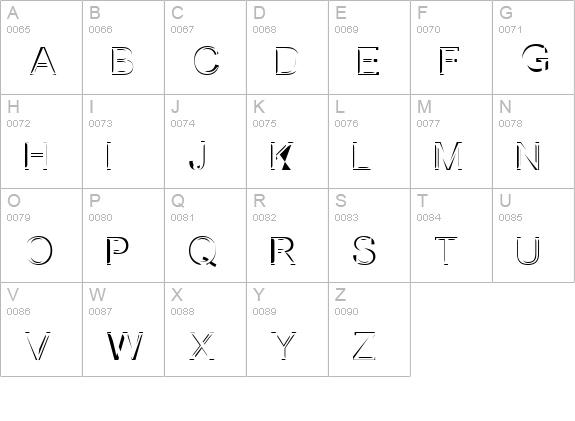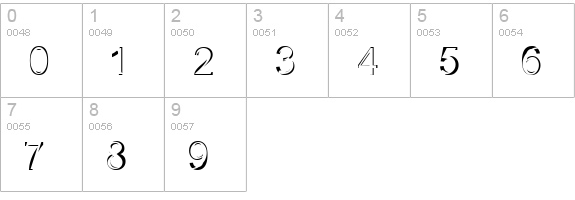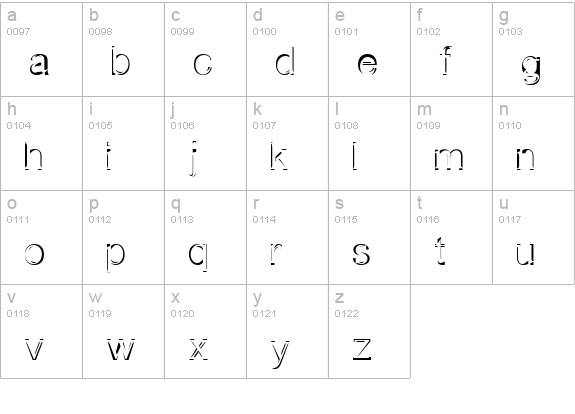
Northern Book Sale is a comfortable, highly readable variant in the Northern typeface family \xE2\x80\x94 well suited to long-form body text, articles, and editorial content.
Introducing Northern Book Sale font, a modern and versatile typeface perfect for adding a touch of elegance to your designs. This sleek and sophisticated font features clean lines and a timeless appeal, making it ideal for a wide range of projects. Whether you're working on invitations, branding, or editorial design, Northern Book Sale font is sure to make a statement. What's even better is that this stunning font is available for free download at FontsMarket.com. Yes, you read that right - you can get your hands on Northern Book Sale font without spending a dime. So why wait? Elevate your designs with this beautiful typeface today and watch your projects come to life with style and sophistication. Download Northern Book Sale font now and let your creativity soar!